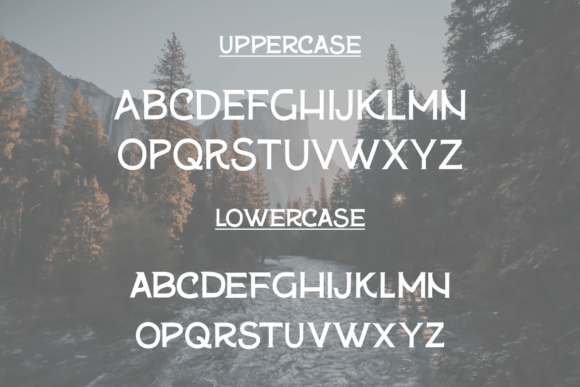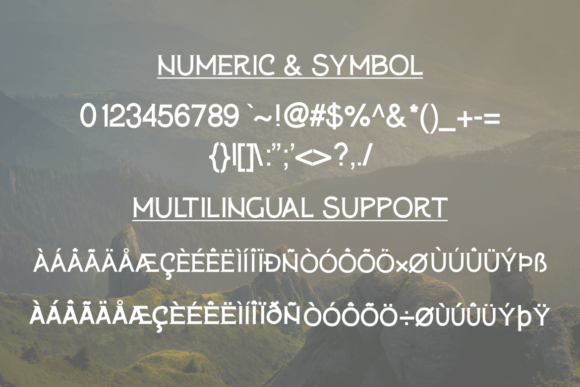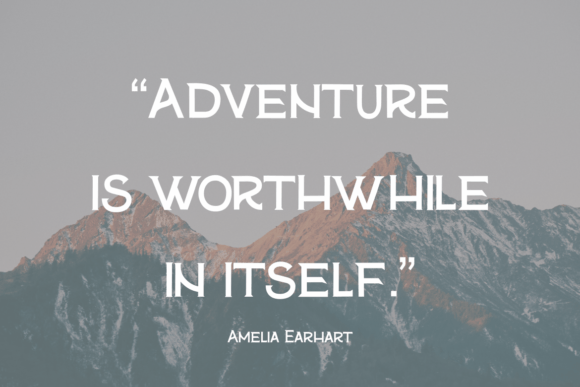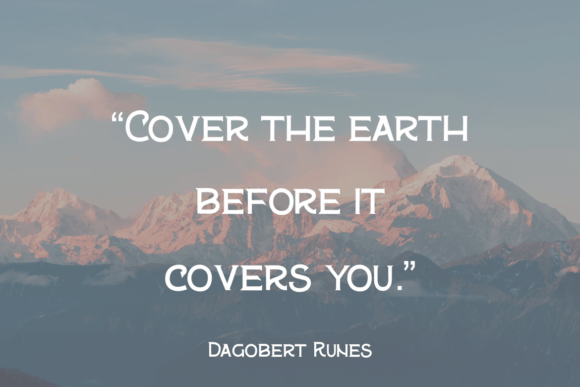
Introducing Askara Font: Elevate Your Designs with a Unique Touch
In the world of design, typography plays a crucial role in conveying messages, expressing creativity, and capturing attention. A well-crafted font can make all the difference in transforming a design from ordinary to extraordinary. This is where Askara Font comes into play – a thoughtfully designed font that brings an original touch to your creative projects. In this article, we’ll explore the features, benefits, and uses of Askara Font, and why it’s an essential addition to your design toolkit.
The Birth of Askara Font
Askara Font is the result of a meticulous design process aimed at creating a versatile and visually appealing typeface. Our team of designers poured their expertise and creativity into crafting a font that not only looks great but also meets the diverse needs of designers, crafters, and artists. With Askara Font, we’ve created a unique blend of style, strength, and sharpness that sets it apart from other fonts.
Key Features of Askara Font
So, what makes Askara Font stand out? Here are some of its key features:
- Complete Character Set: Askara Font includes a comprehensive set of characters, covering uppercase, lowercase, numeric, and symbols. This ensures that you have everything you need to create stunning designs.
- Strong and Sharp: The font’s robust and sharp design makes it perfect for creating eye-catching titles, posters, and typography.
- Versatile: Askara Font is suitable for a wide range of design applications, including magazines, brochures, packaging, websites, and more.
Use Cases for Askara Font
Askara Font is an incredibly versatile typeface that can be used in various design projects. Here are some examples of how you can utilize this awesome font:
- Typography: Create stunning typographic designs, quotes, and phrases that showcase your creativity.
- Posters and Flyers: Use Askara Font to design attention-grabbing posters, flyers, and advertisements that leave a lasting impression.
- Magazines and Brochures: Add a touch of sophistication to your magazine and brochure designs with Askara Font’s sharp and clean lines.
- Packaging: Elevate your packaging designs with a font that’s both strong and stylish.
- Websites: Use Askara Font to create engaging website content, including headings, titles, and more.
Benefits of Using Askara Font
By incorporating Askara Font into your design workflow, you can enjoy several benefits:
- Unique Designs: Askara Font helps you create distinctive designs that stand out from the crowd.
- Time-Saving: With a comprehensive character set and versatile design, you can save time and focus on other creative aspects of your project.
- Professional Look: Askara Font’s strong and sharp design gives your projects a professional and polished look.
In conclusion, Askara Font is an exceptional typeface that offers a perfect blend of style, versatility, and originality. Whether you’re a designer, crafter, or artist, this font is sure to become an essential part of your creative toolkit. With its comprehensive character set, strong and sharp design, and wide range of use cases, Askara Font is the perfect choice for elevating your designs and making them cooler. So, what are you waiting for? Download Askara Font today and unlock a world of creative possibilities!